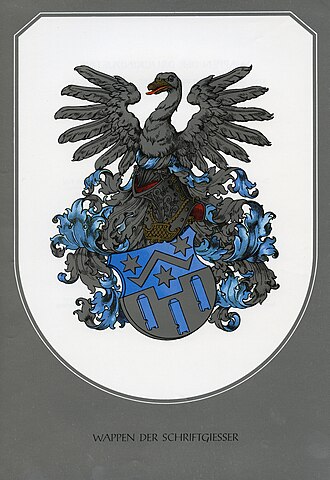
Type foundry
A type foundry is a company that designs or distributes typefaces. Before digital typography, type foundries manufactured and sold metal and wood typefaces for hand typesetting, and matrices for line-casting machines like the Linotype and Monotype, for letterpress printers. Today's digital type foundries accumulate and distribute typefaces created by type designers, who may either be freelancers operating their own independent foundry, or employed by a foundry. Type foundries may also provide custom type design services.
The German coat of arms for a type-founders' guild (or "Schriftgießer" in German) source ↗
A type foundry is a company that designs or distributes typefaces. Before digital typography, type foundries manufactured and sold metal and wood typefaces for hand typesetting, and matrices for line-casting machines like the Linotype and Monotype, for letterpress printers. Today's digital type foundries accumulate and distribute typefaces (typically as digitized fonts) created by type designers, who may either be freelancers operating their own independent foundry, or employed by a foundry. Type foundries may also provide custom type design services.
England
In England, type foundries began in 1476, when William Caxton introduced the printing press, importing at least some of the type that he used in printing.1 Until William Caslon (1692–1766), English type generally had a poor reputation so the best type was imported from Holland.1
Only after Caslon had established his Caslon foundry in Chiswell Street, did the City of London become a major centre for the industry, until the end of the 20th century when famous metal-based printing districts such as Fleet Street came to the close of their era. The industry was particularly important in Victorian times, when education became available to all due to the new school boards, and firms such as Charles Reed & Sons, the printer and type founders were in their heyday. The St Bride Printing Library in the City of London encourages wider public interest in the history of type founding for the printed book and newspaper.